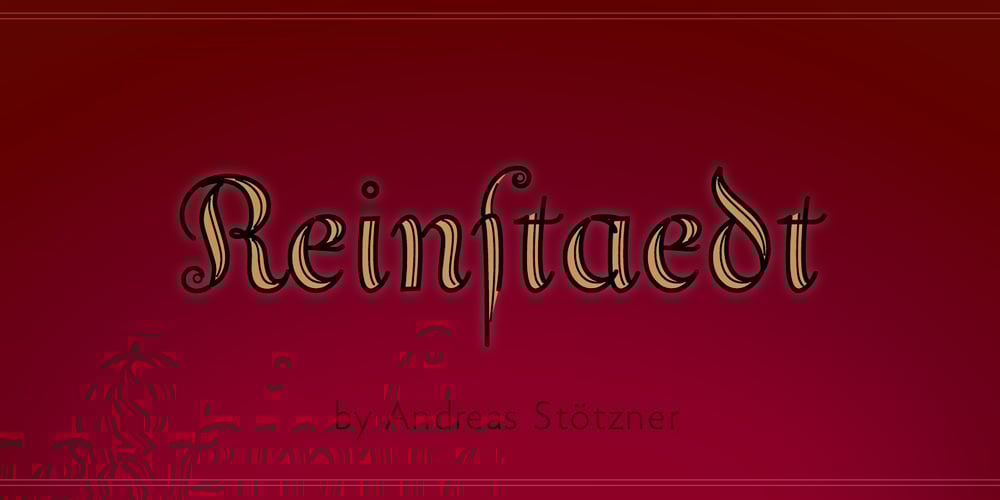
Reinstaedt Font Family was designed by Andreas Stötzner and published by SIAS. Reinstaedt contains 6 styles and family package options. Reinstaedt is a fancy new display font family designed from scratch by Andreas Stötzner. The very first sketches were inspired during a holiday spent in remote Reinstädt of Thuringia (Germany). Though bearing a rather formal appearance Reinstaedt still shows its hand-drawn origin. Reinstaedt gives a magnificent breath of fresh air to everything related to food, health, wellness, holiday – to the art of fine living. Enhance your designs by creating enchanting headlines! You can design thrilling type variations by multi-colored overlaying and by combining with ornamental embellishments.